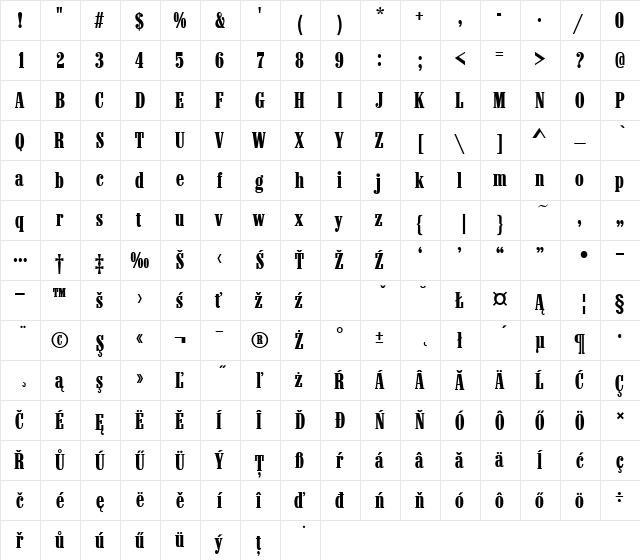
MarlbDEE Regular
Design Context for MarlbDEE Typeface
MarlbDEE offers clean, dependable letterforms without strong stylistic allegiance, making it a practical choice for designers who need flexibility.